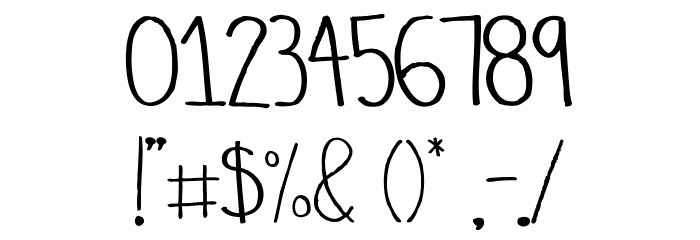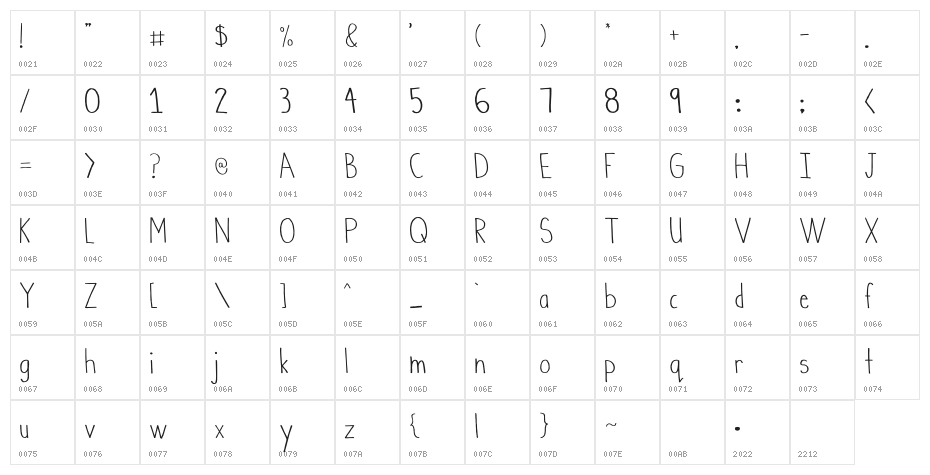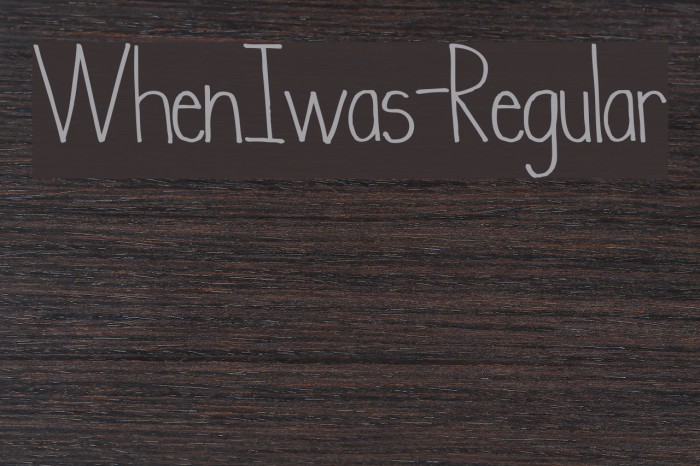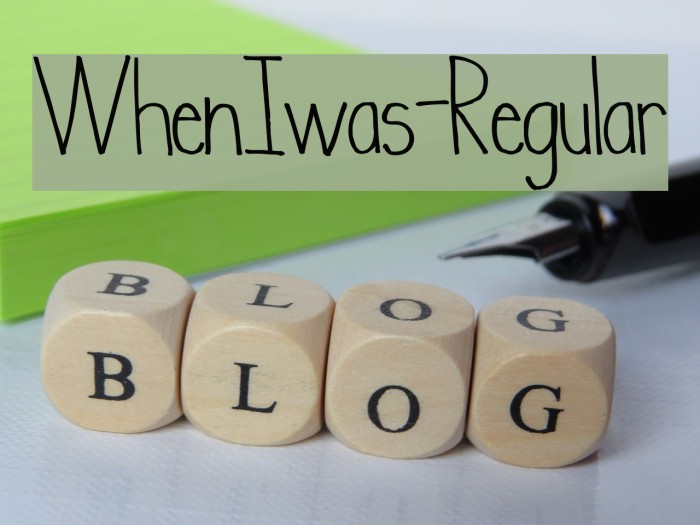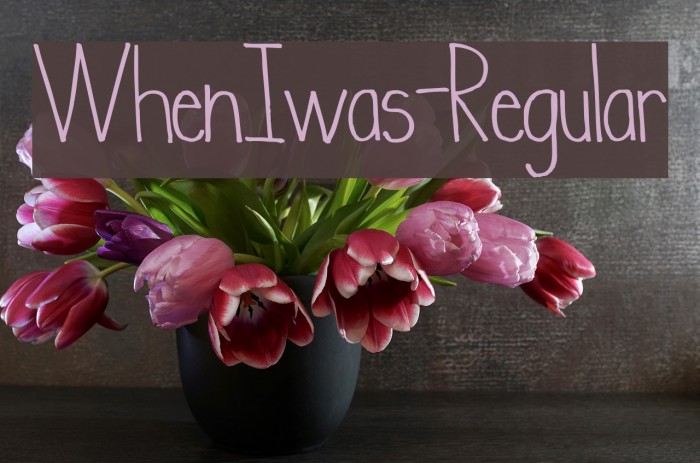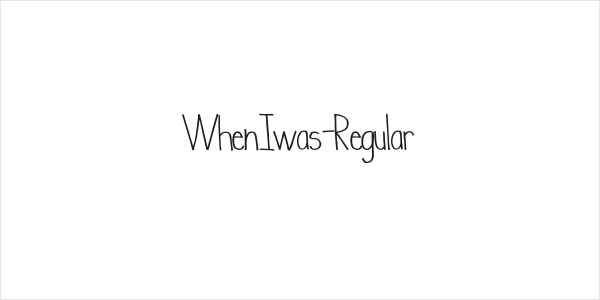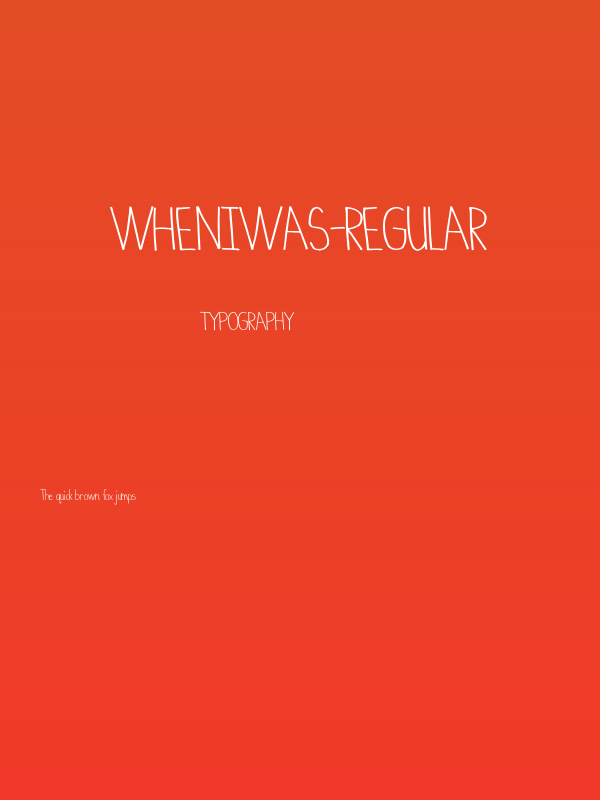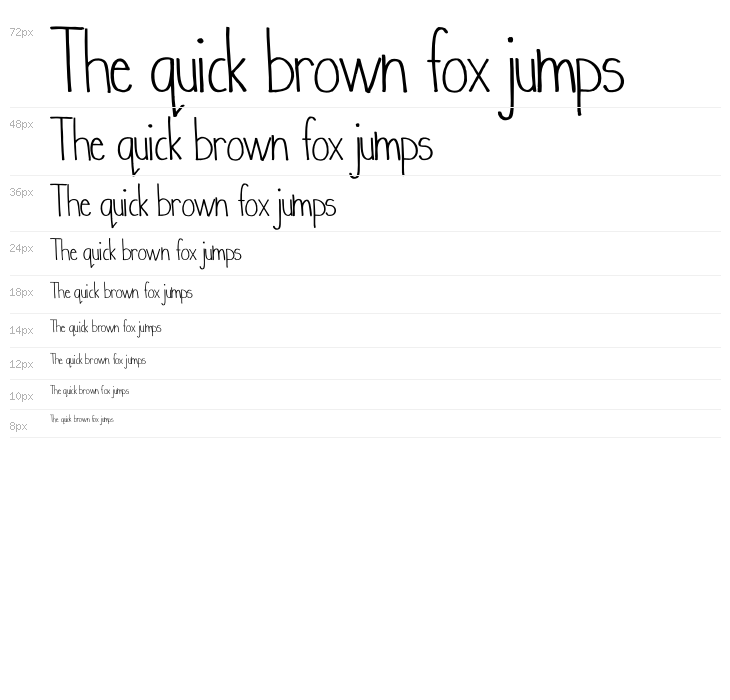
WhenIwas-Regular Font
WhenIwas-Regular Description
This font features a playful and informal handwritten style, characterized by its irregular strokes and whimsical appearance. The letters have a casual, friendly feel, with slightly uneven lines that give it a personal touch. The uppercase and lowercase letters maintain a consistent style, while the numerals and special characters complement the overall aesthetic. The font's design is approachable and versatile, making it suitable for a variety of creative projects.
| Proposed Projects | Ideal for greeting cards, children's books, personal blogs, and informal branding projects. |